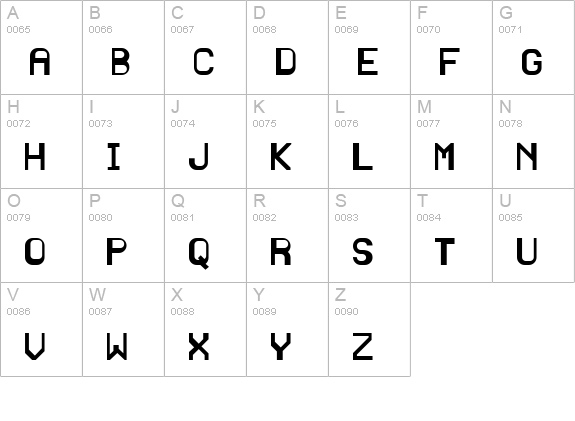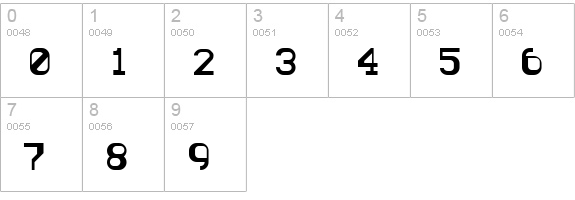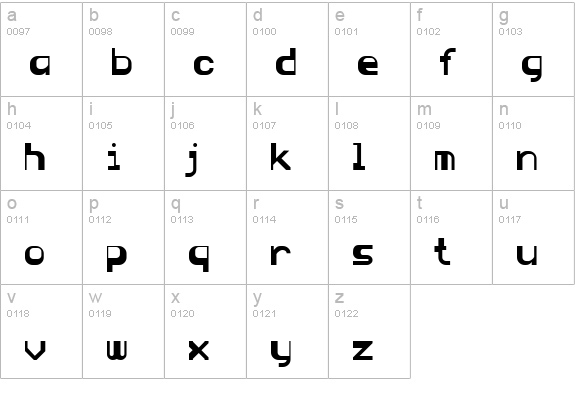
Blue Regular Font Details
Blue Regular is the standard, neutral variant in the Blue typeface family \xE2\x80\x94 well suited to general body text, paragraphs, and standard typographic work.
Blue Regular font is a versatile and modern typeface that exudes elegance and sophistication. With its clean lines and subtle curves, this font is perfect for a wide range of design projects, from branding to editorial design. The Blue Regular font is free to download at FontsMarket.com, making it easily accessible for designers looking to add a touch of class to their work. Whether you're designing a sleek logo or creating a stylish poster, Blue Regular font is sure to elevate your design with its timeless appeal.